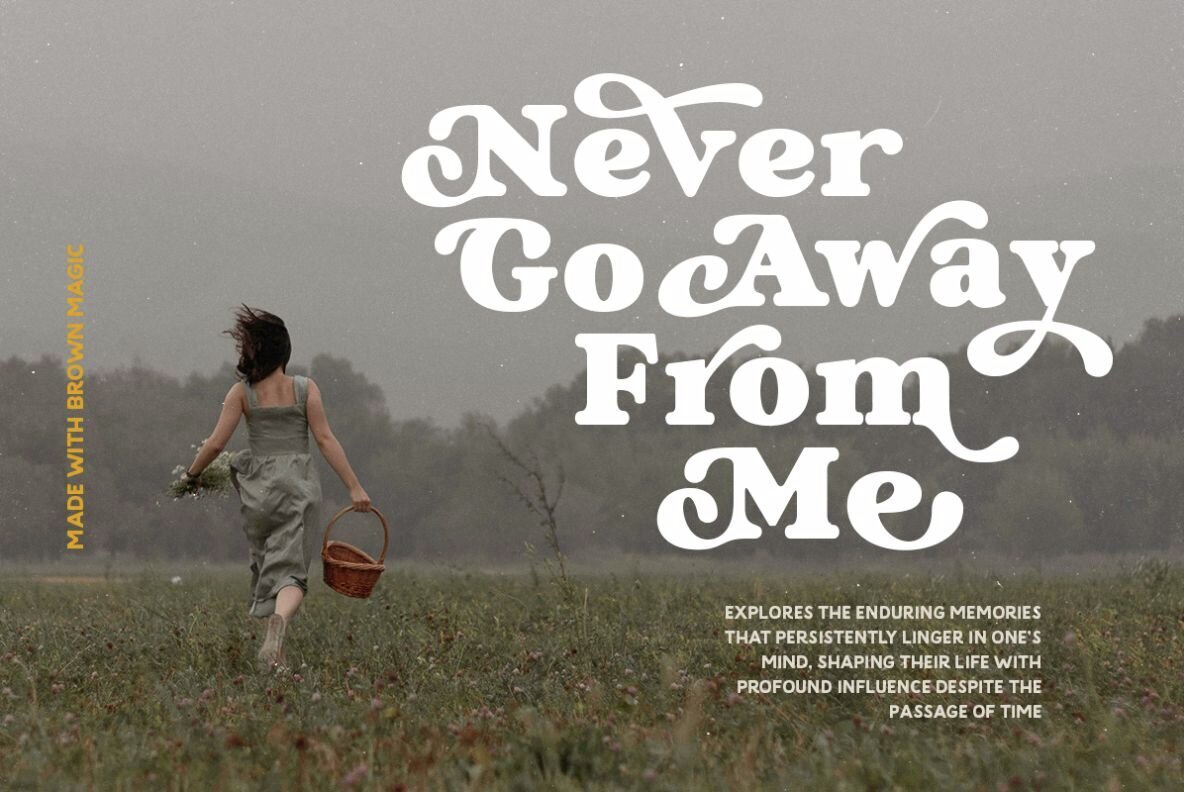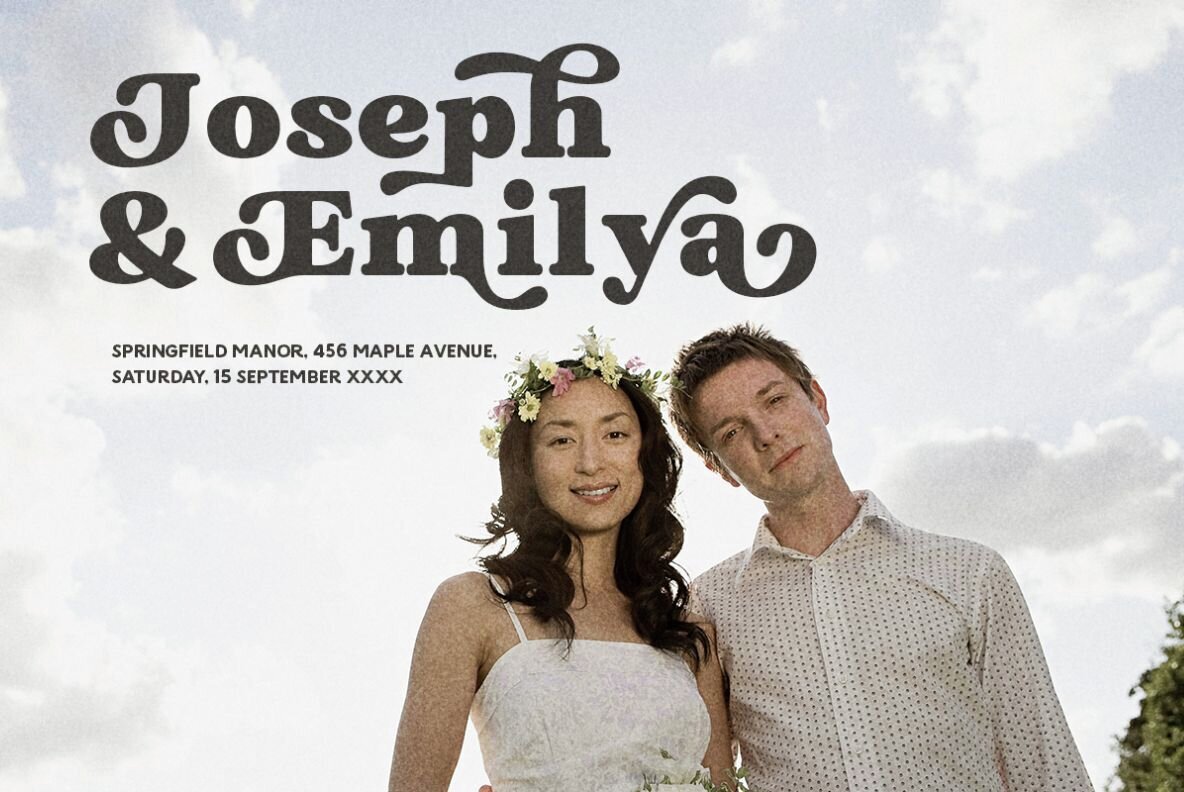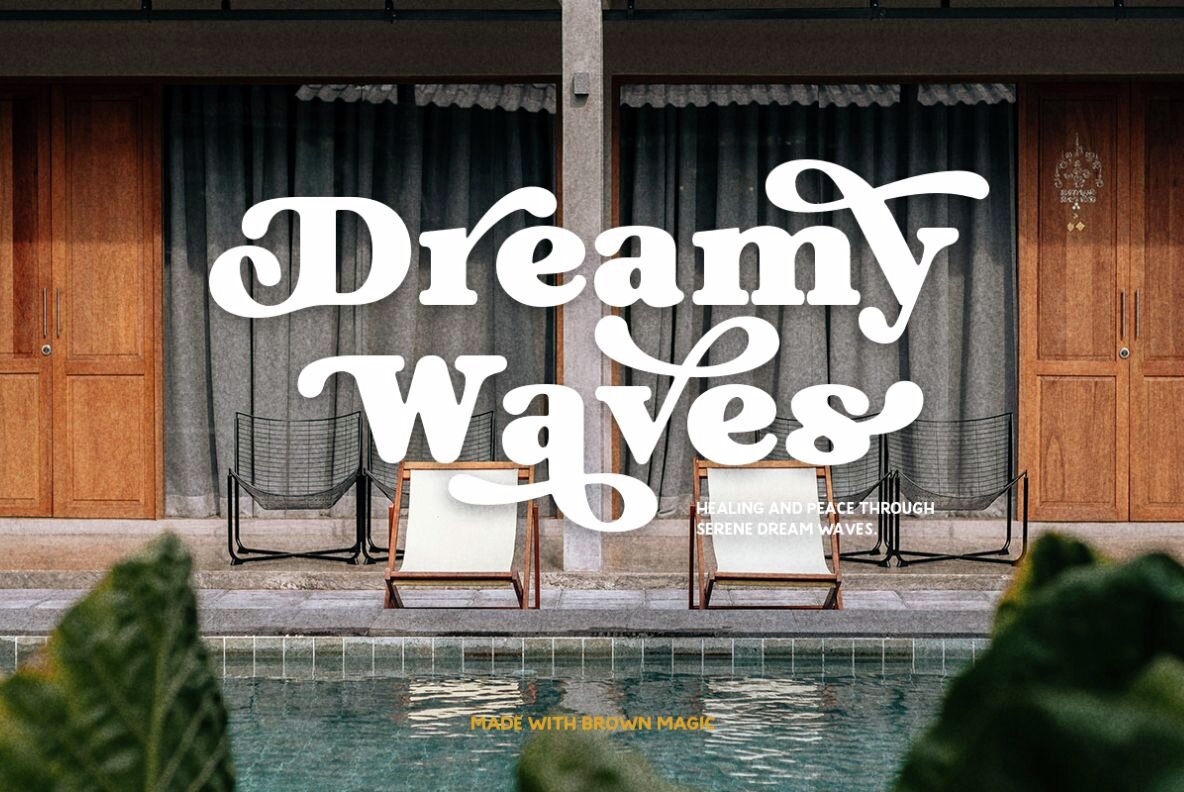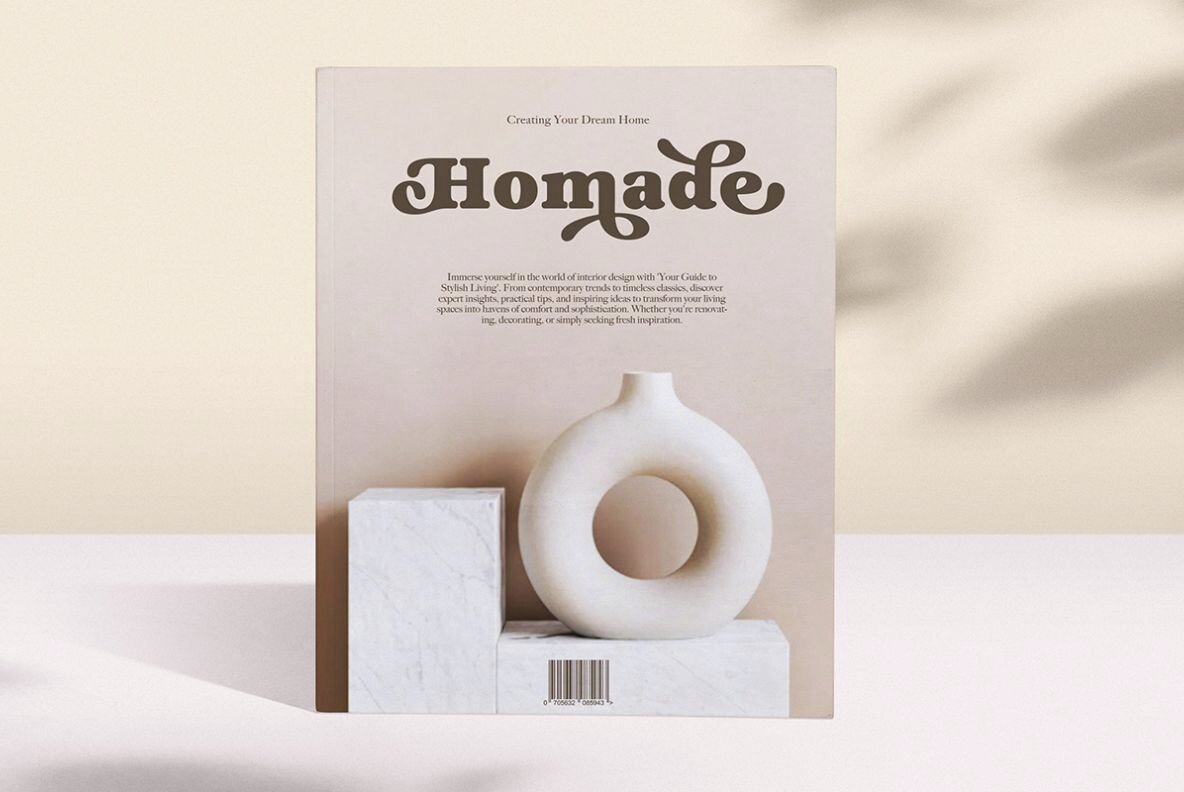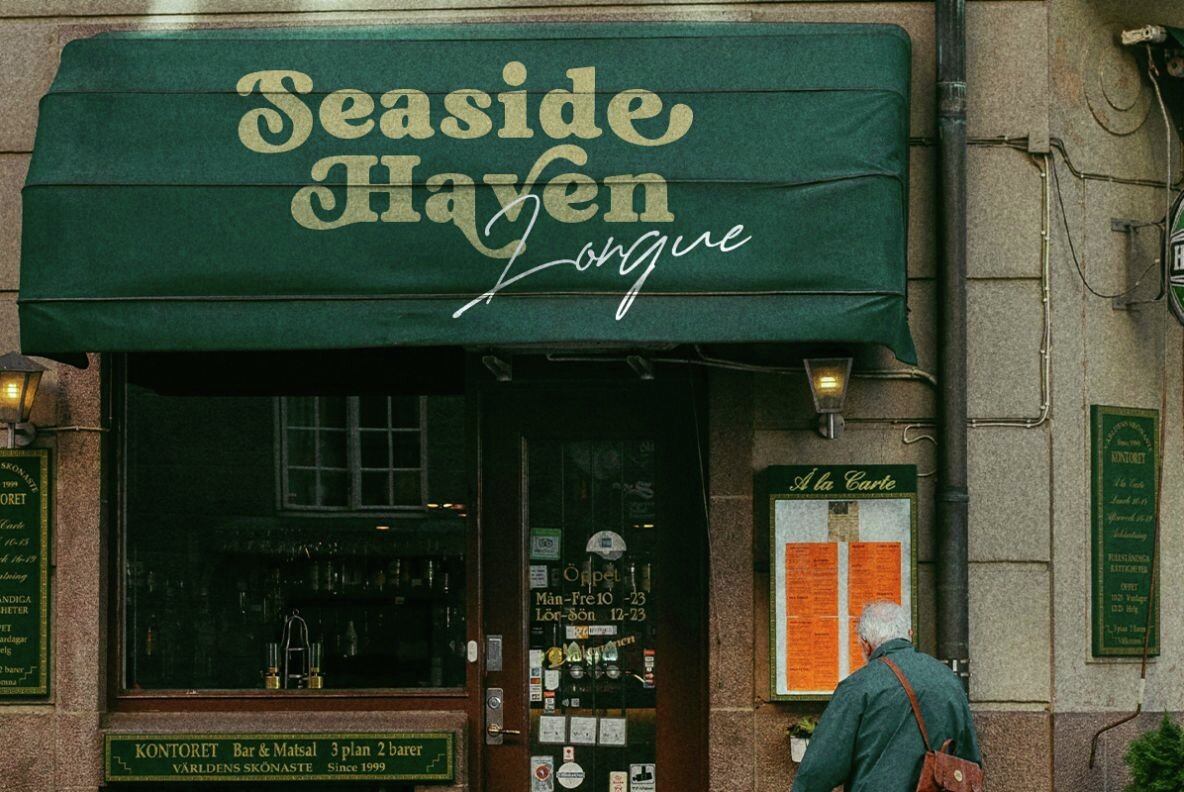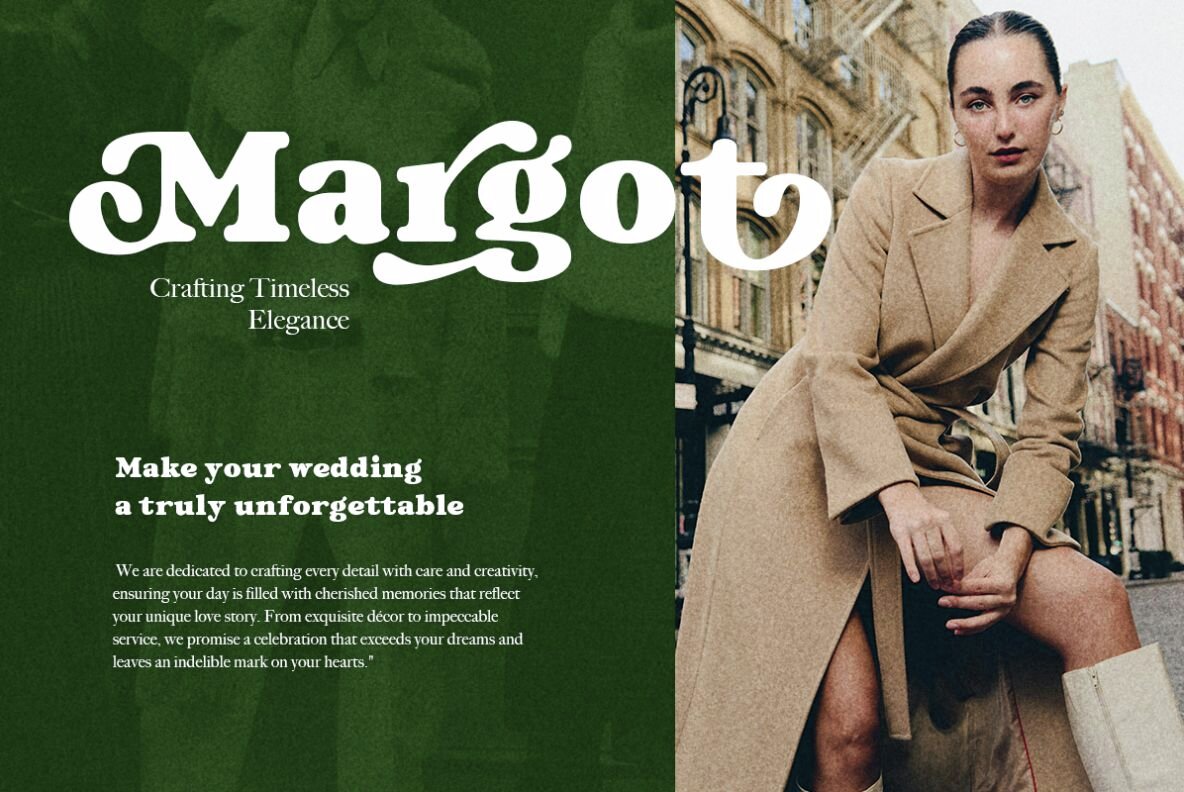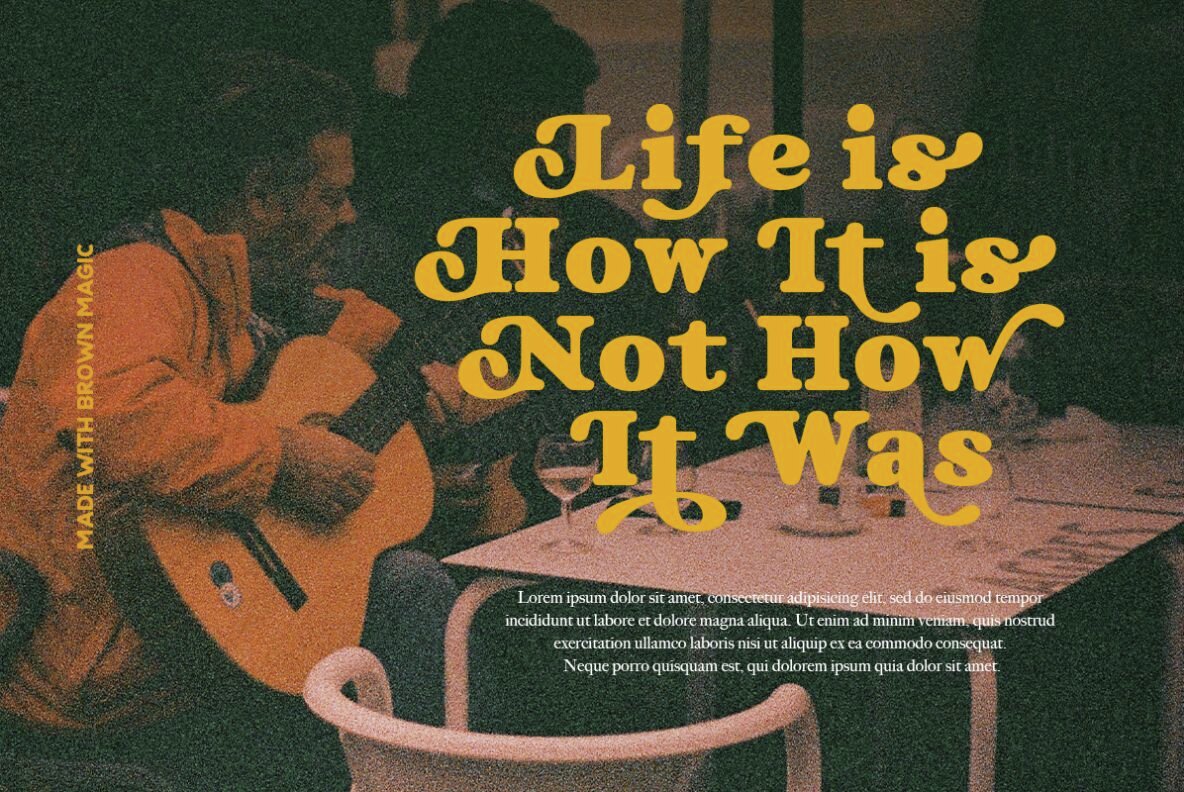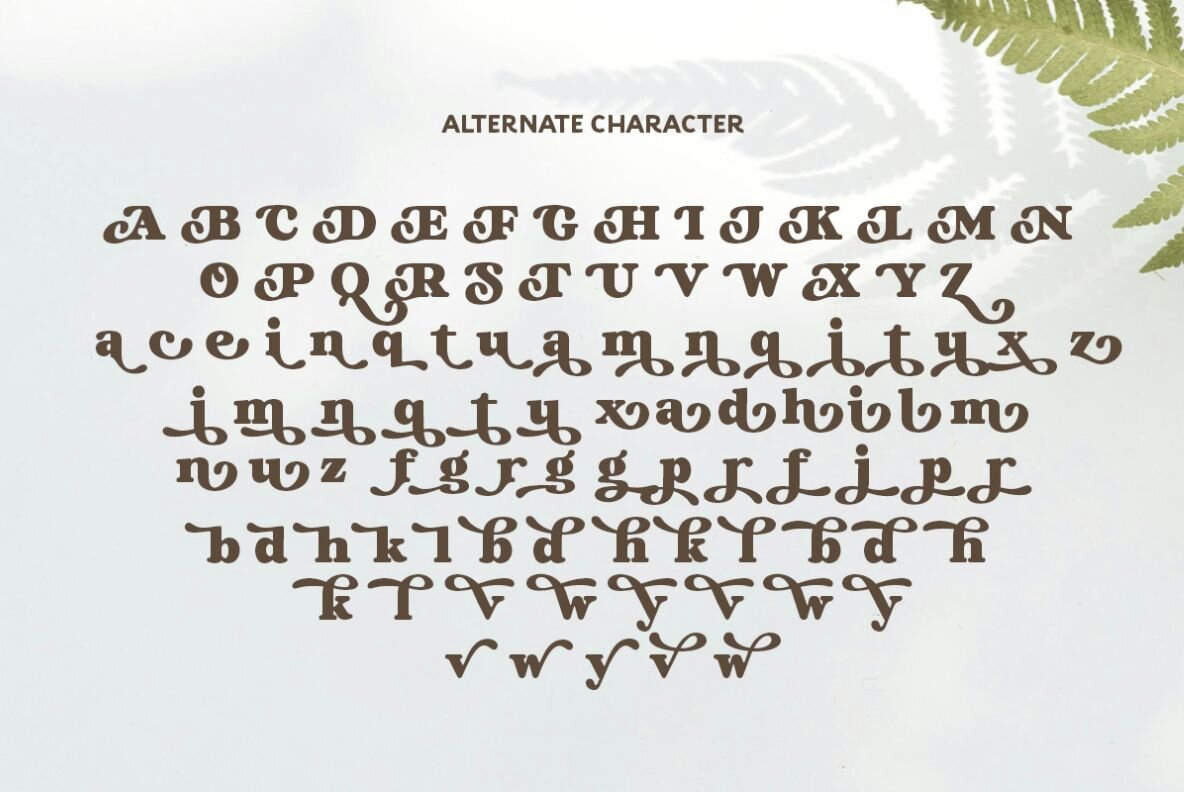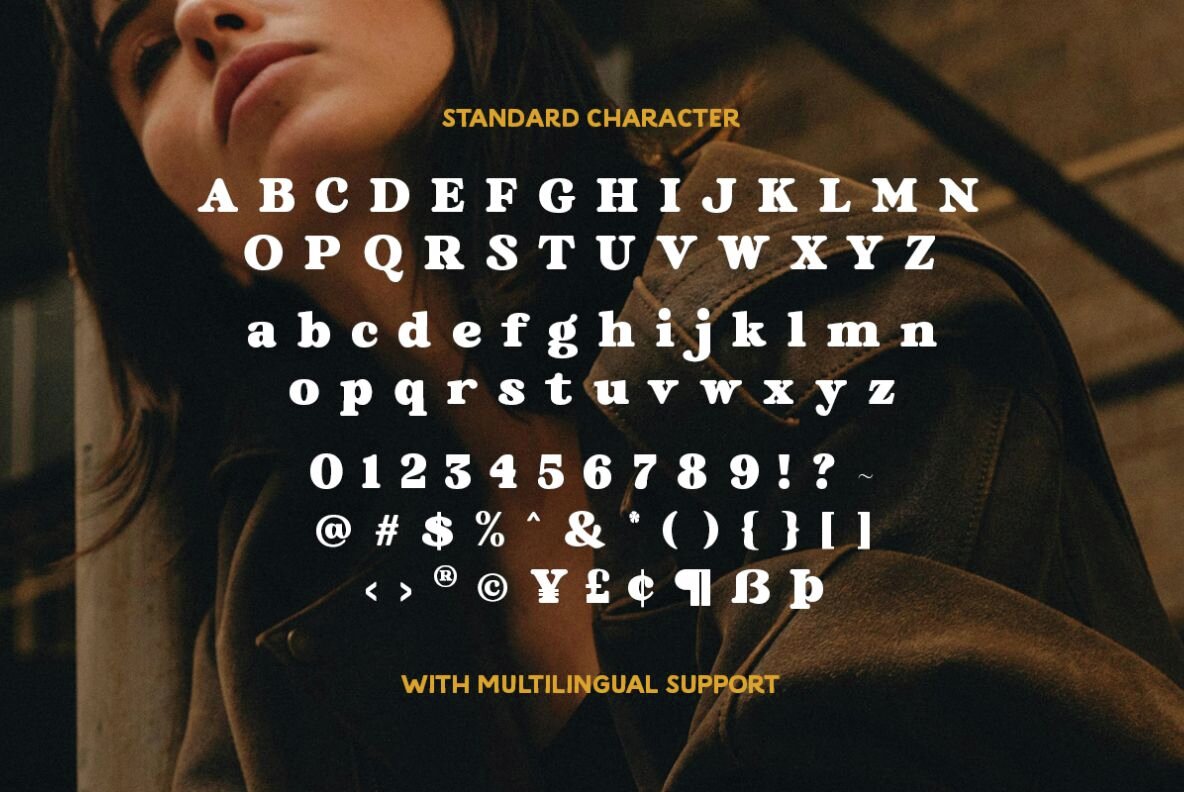
Brown Magic Font
Brown Magic Regular
Brown Magic is a bold serif font that infuses retro and vintage aesthetics into any design. With a variety of stylish alternates, it offers unique customization, making it suitable for a range of creative projects such as posters, logotypes, quotes, and wedding invitations. The elegant swashes further enhance its visual charm, providing designers with versatile options to elevate their work.
Designed to appeal to diverse audiences, Brown Magic supports multiple languages, making it an ideal choice for global projects. Its classic yet contemporary style ensures that it remains adaptable for various design needs, offering both personality and sophistication in one cohesive typeface. Whether for personal or professional use, its distinctive flair is sure to leave a lasting impression.